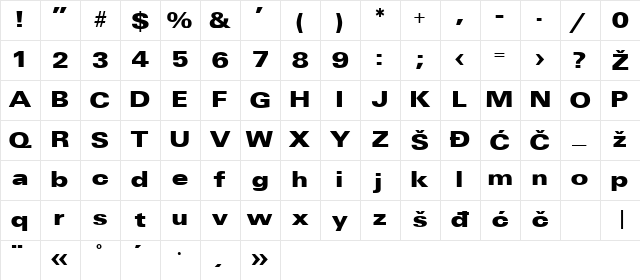
Universans830_PP Bold
Universans830_PP Family
Design Context for Universans830_PP
Universans830_PP is a composed and adaptable typeface that performs quietly and consistently across a wide range of design contexts. Its bold stroke weight gives it real presence on the page.